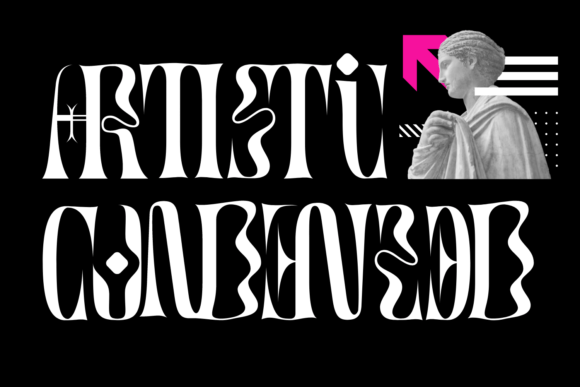
The Art of Condensation: Unleashing Creativity with Artistic Condensed Font
Have you ever stared at a blank canvas, waiting for inspiration to strike? That’s where the magic happens – in those moments of uncertainty, a spark of creativity ignites, and a new idea is born. As designers, we’ve all been there, searching for the perfect font to elevate our work to the next level. Enter Artistic Condensed Font, a game-changing typographic solution that’s poised to revolutionize the way we create.
This innovative font is designed to bring a touch of sophistication and elegance to your work, making it perfect for logos, name cards, magazine layouts, invitations, headers, or even large-scale artwork. With its unique blend of sharp, futuristic lines and organic structures, Artistic Condensed Font is a valuable addition to any designer’s toolkit.
- Unique Characteristics: Features a unique blend of artistic flair and condensed typography, making it ideal for headlines, titles, and short text blocks
- Character Set: Includes a comprehensive character set, including Latin, Cyrillic, and Greek alphabets, as well as a range of punctuation and symbol characters
- Font Styles: Offers a range of font styles, including Regular, Bold, Italic, and Bold Italic, to provide flexibility and versatility in design applications
Artistic Condensed Font Review
I’ve had the chance to play around with the Artistic Condensed Font, and I must say it’s got some interesting qualities. ✨
The font’s condensed nature makes it perfect for titles and headings where you need to convey a sense of importance and elegance. The artistic flair adds a touch of sophistication, making it suitable for high-end branding and advertising. It also works well in digital media, where the condensed style can help to reduce line length and improve readability.
- Condensed style perfect for titles and headings
- Artistic flair adds sophistication and elegance
- Works well in digital media for improved readability
- May be difficult to read in large blocks of text due to condensed style
- Artistic flair may not appeal to those who prefer more minimalist designs
- May not be suitable for body text where legibility is a top priority
Overall, I think the Artistic Condensed Font is a great addition to any designer’s toolkit. While it may have some limitations, its unique style and versatility make it a valuable asset for creating eye-catching designs. ⚠️
For optimal results, use the Artistic Condensed Font in conjunction with bold or italic text to add emphasis and visual interest.
The Artistic Condensed Font is ideal for use in headings, titles, and other prominent text elements where a bold and modern look is desired.
It’s particularly well-suited for use in digital designs, such as social media posts, website headers, and mobile app interfaces.
Yes, the Artistic Condensed Font supports a wide range of Unicode characters, including Latin, Cyrillic, and Greek alphabets, as well as many special characters and symbols. This ensures that the font can be used effectively in a variety of languages and applications.